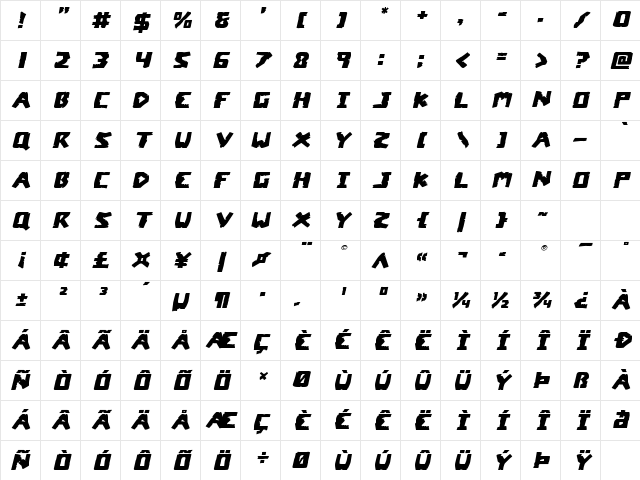
Coffin Stone Expanded Italic is a composed and adaptable typeface that performs quietly and consistently across a wide range of design contexts. The slanted form adds forward momentum and visual energy.